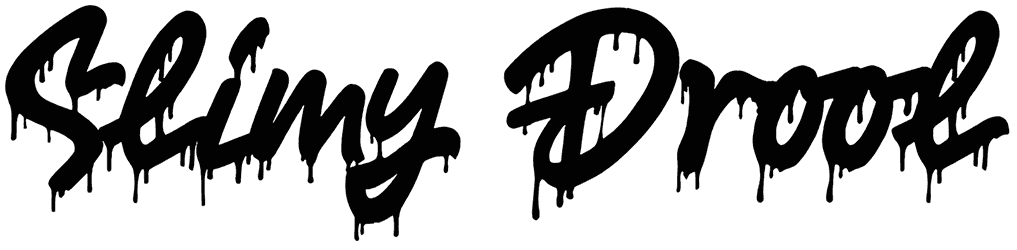
Slimy Drool Font
Slimy Drool is an appropriate choice if you are looking for a well-designed horror font. This scary font has a popular style that seems entertaining to the viewers.
You may use the Slimy Drool for various cases, such as posters, flyers, and prints on T-shirts, while some numbers are not supported. This slime font’s letters are bold with soft edges and have drops of blood that make it memorable. So, give this amazing font a try and impress your audience.